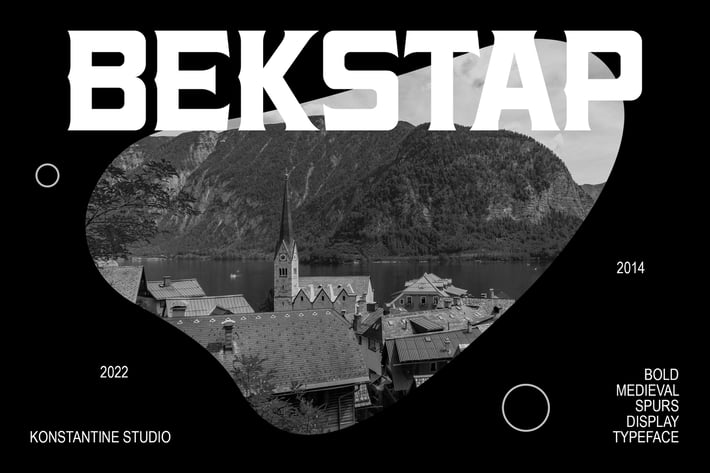
Bekstap - Bold Vintage Serif Fonts
BEKSTAP is an experimental serif typeface with bold and strong presence on it. It's a mix of vintage and modern looks to reach the wider possibilities in usage for the long term of visual branding.